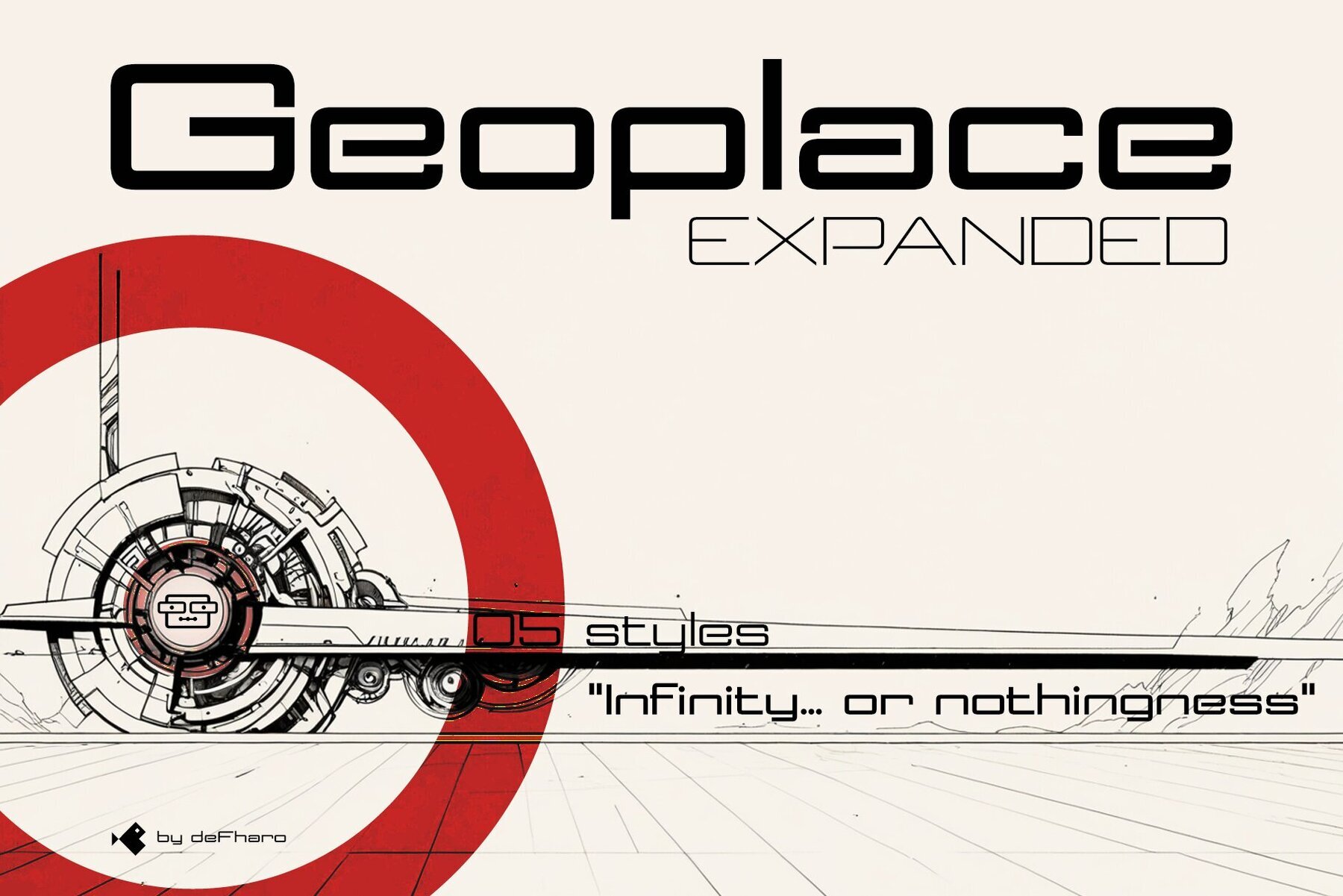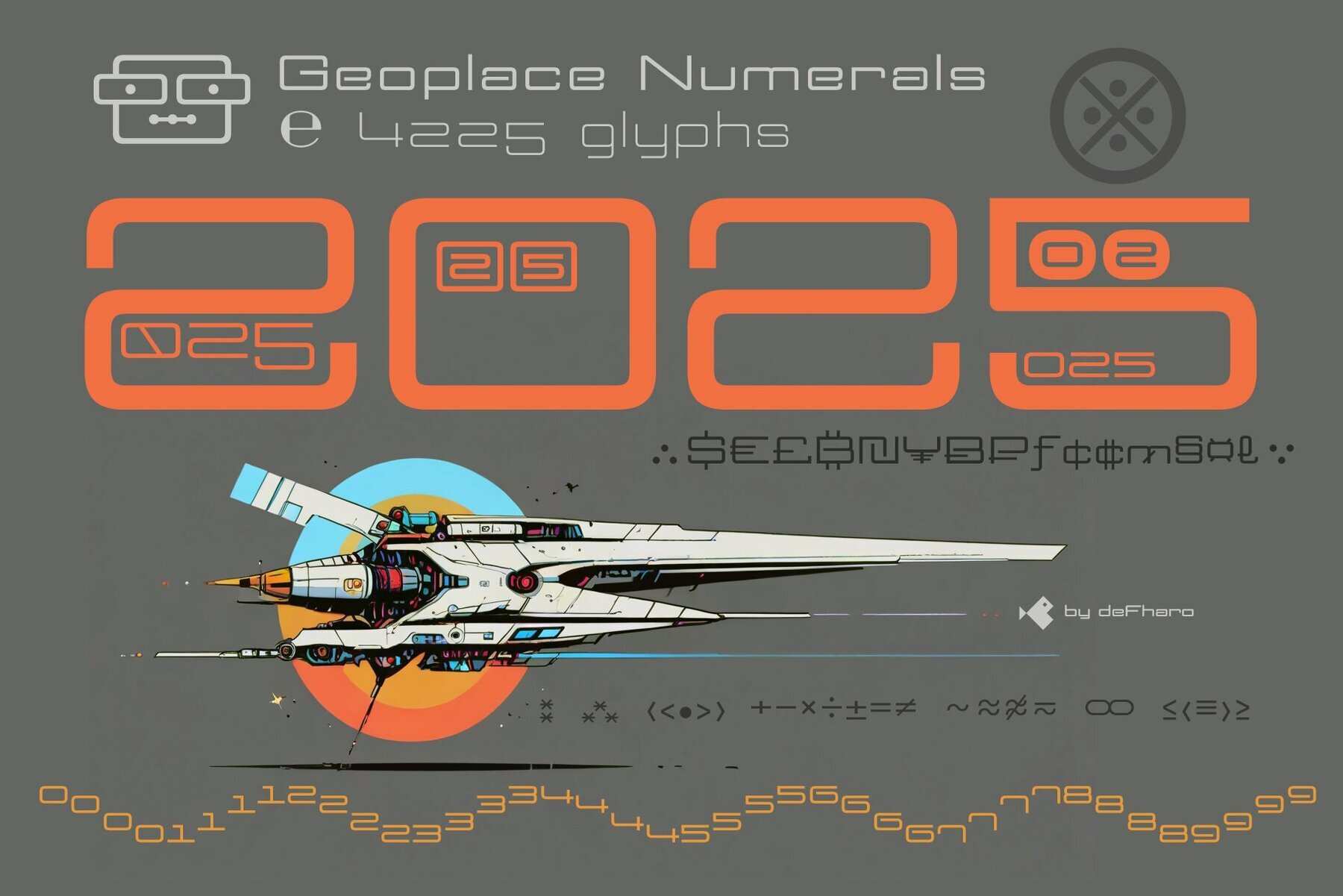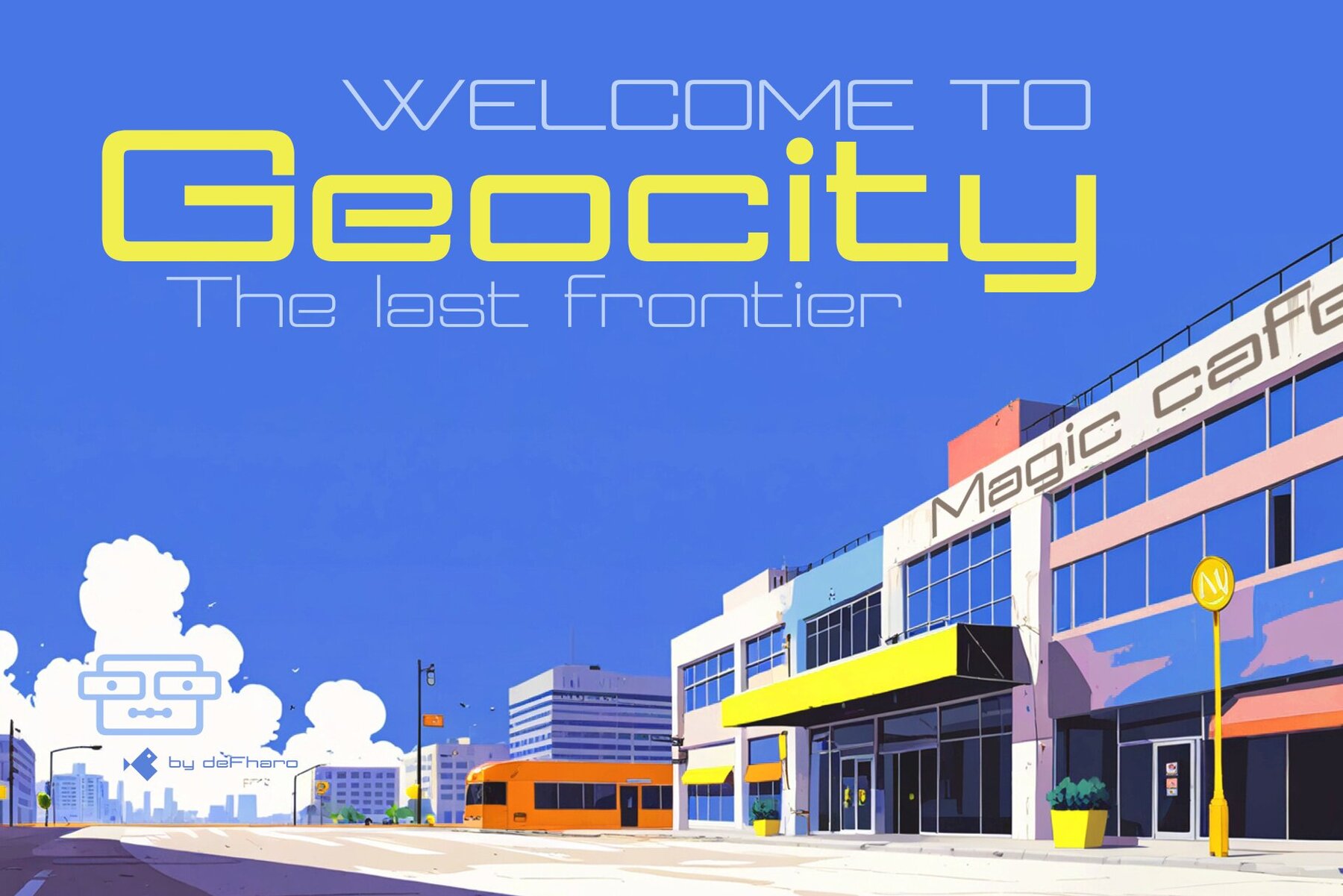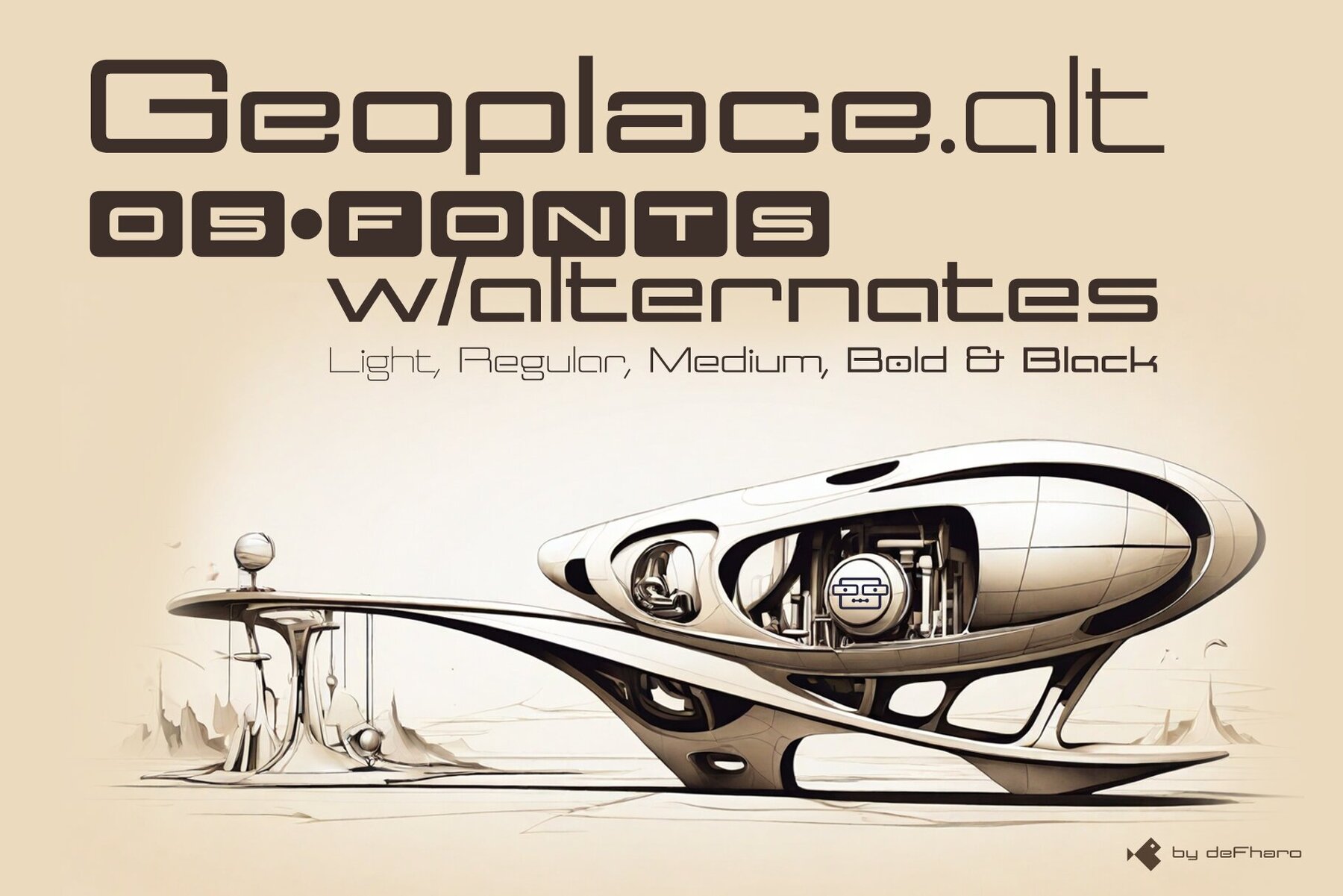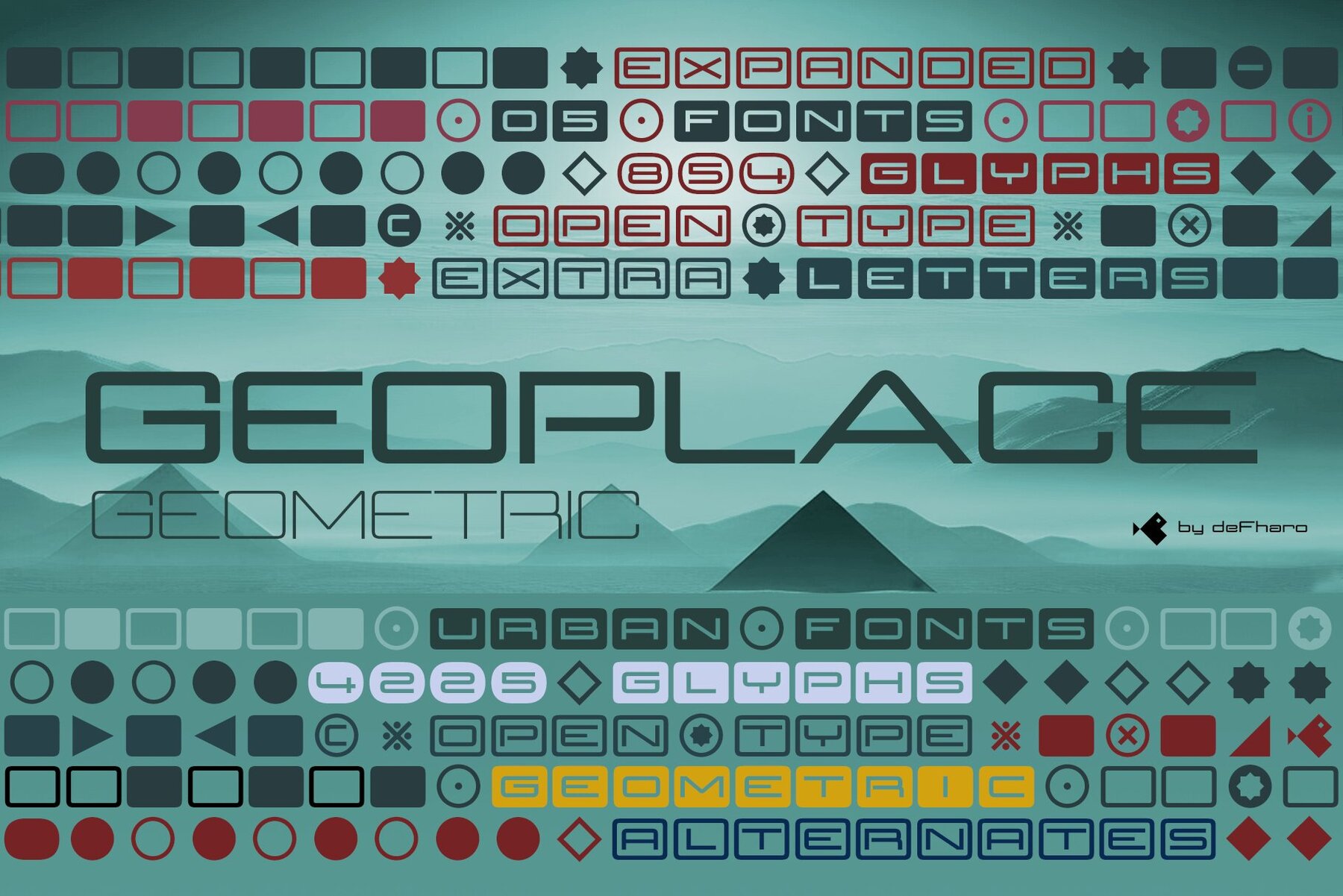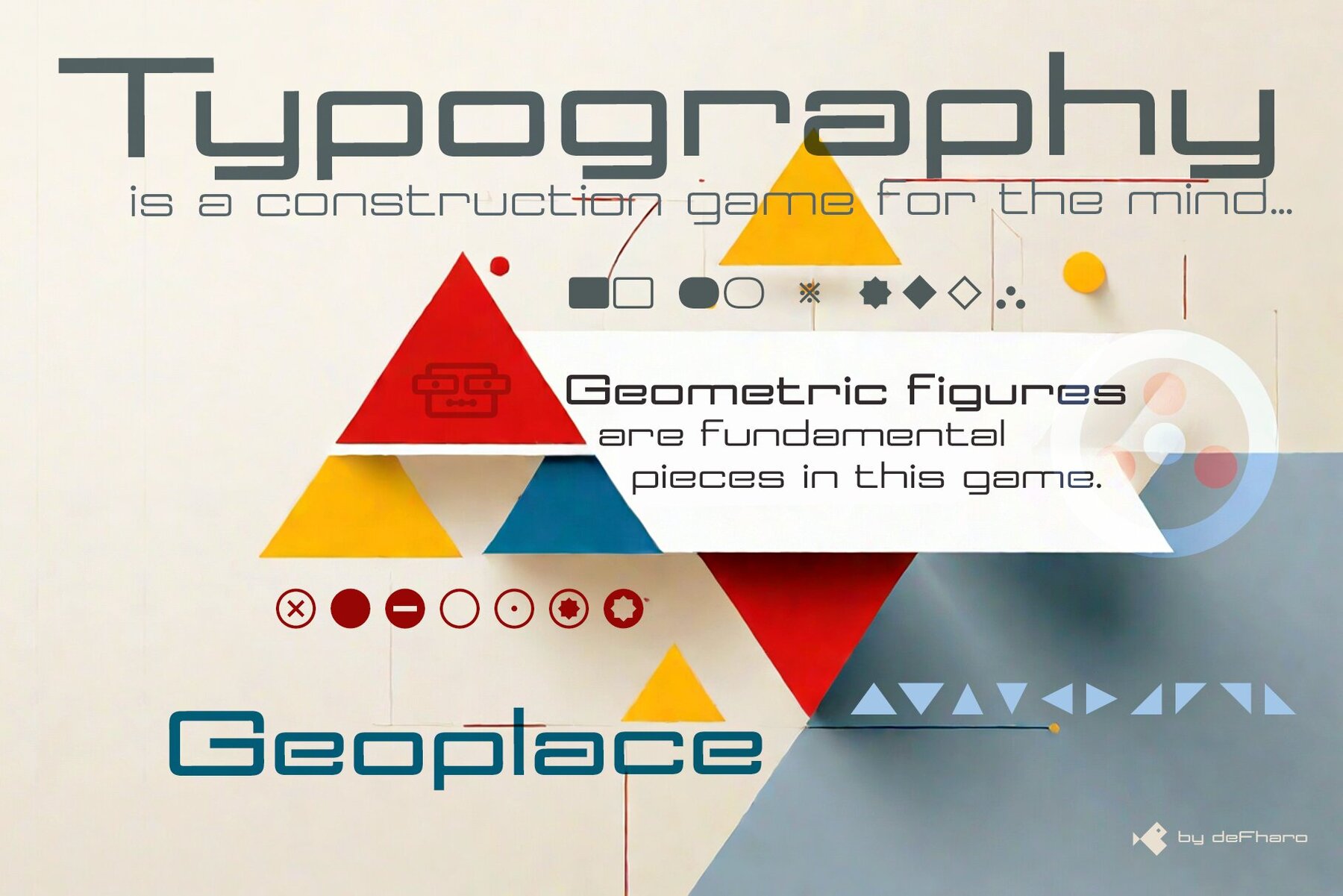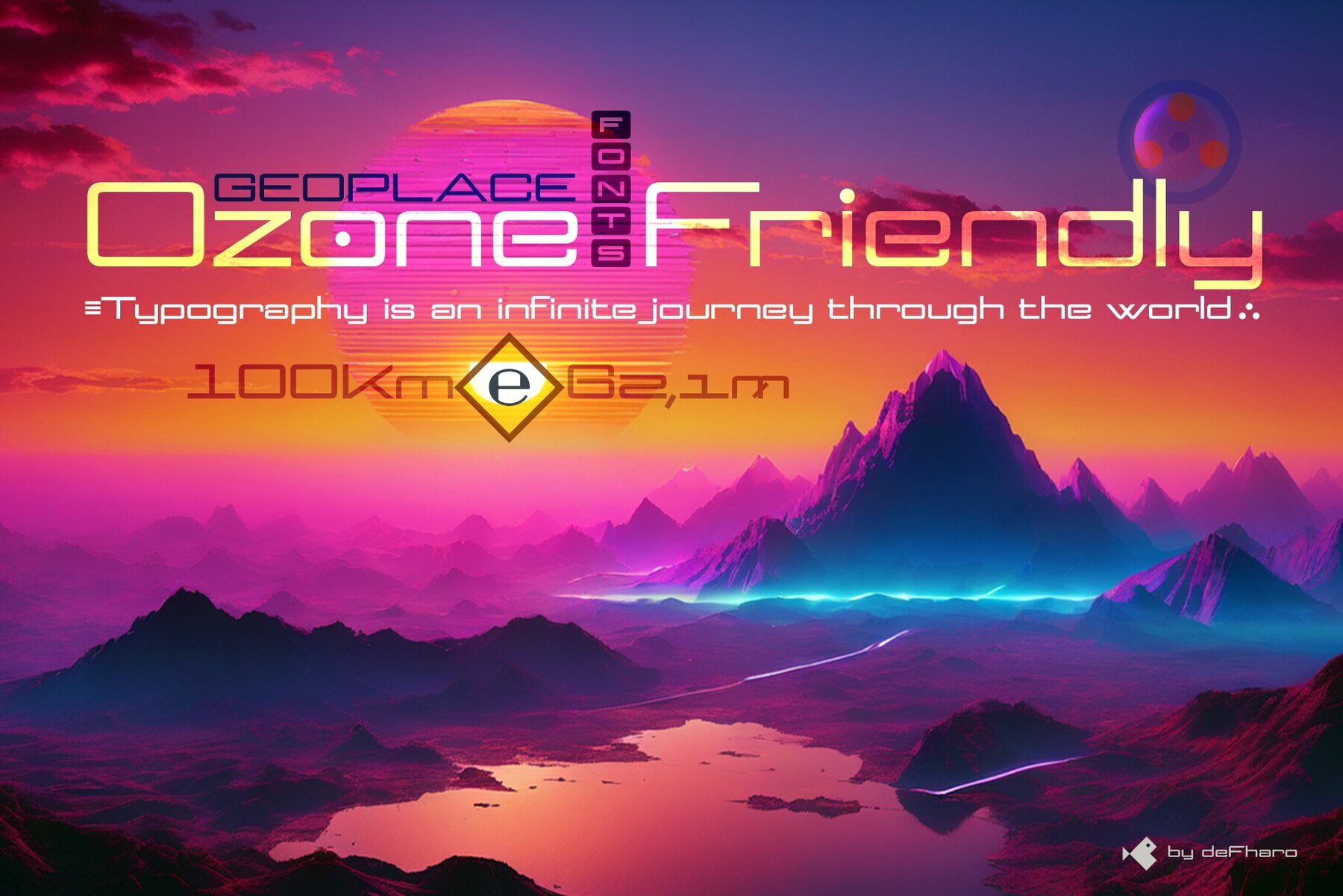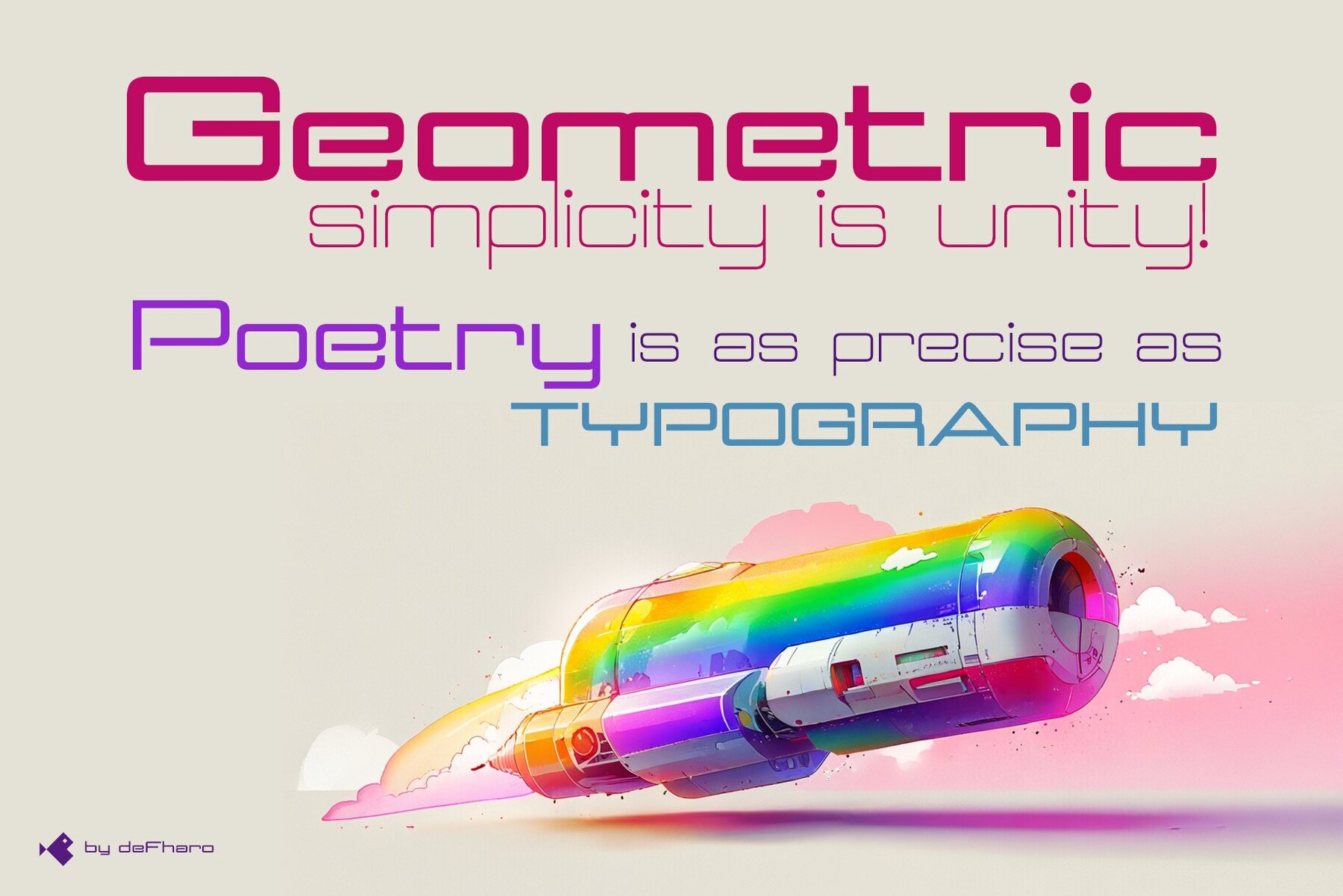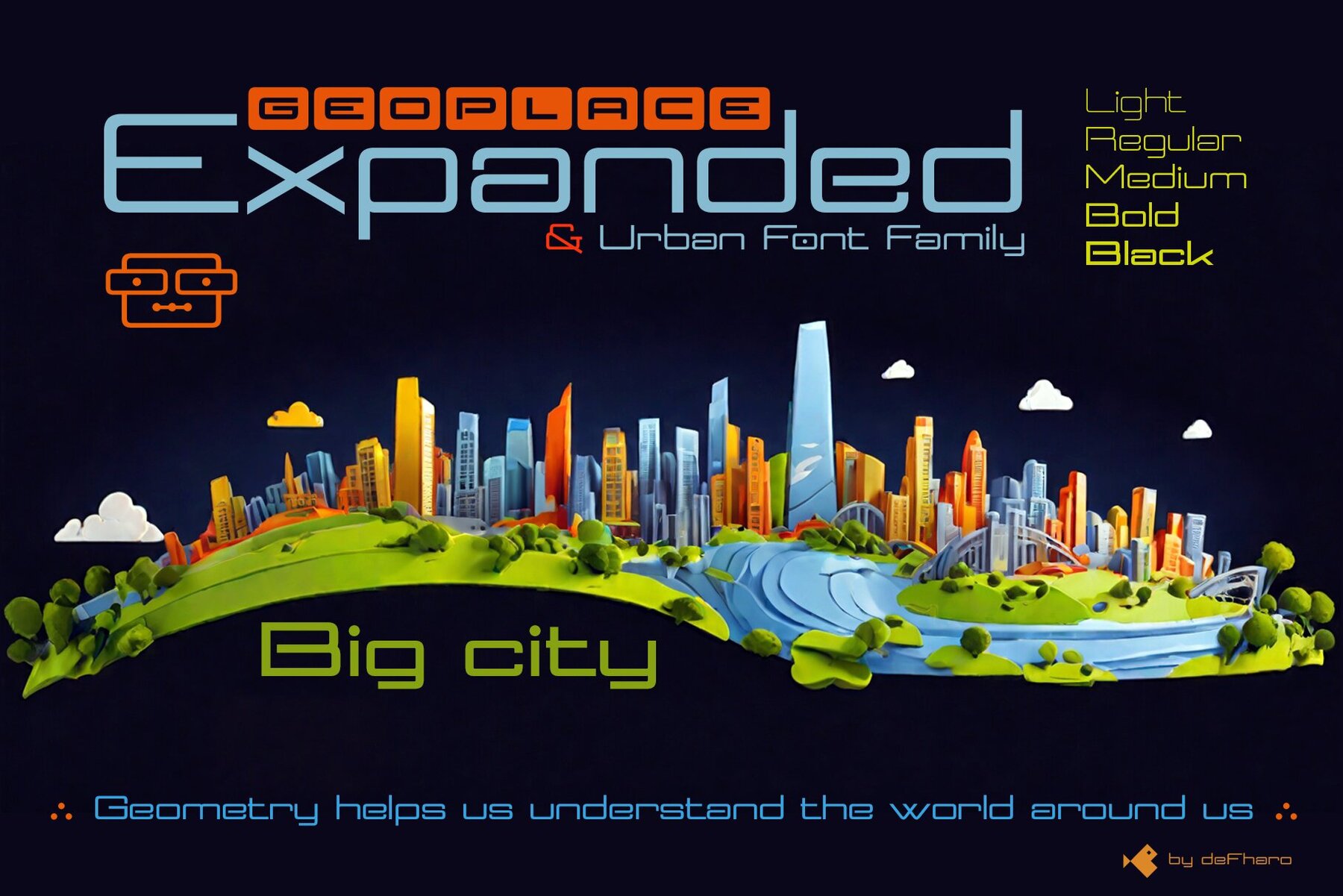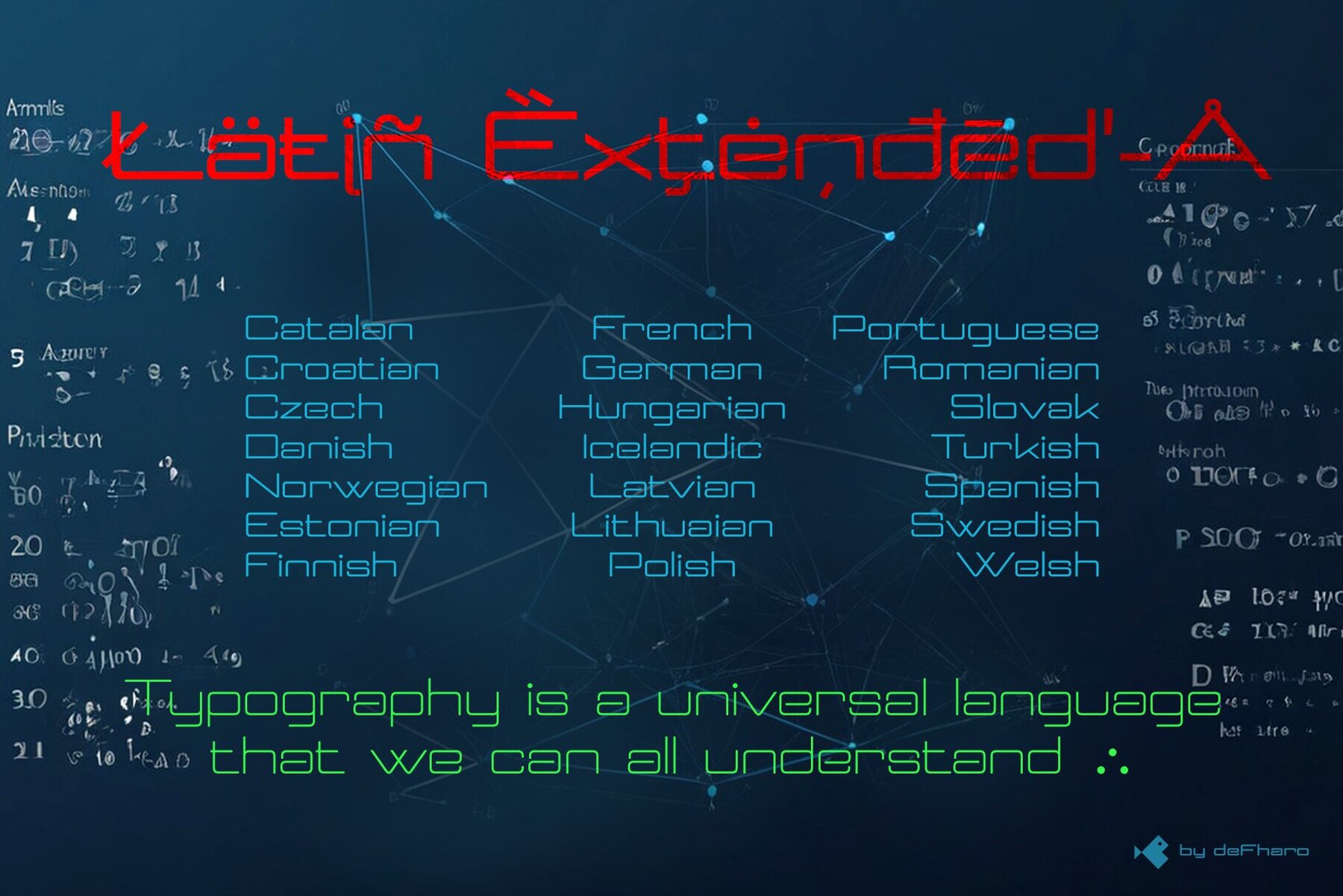
Geoplace Font
Geoplace is an exceptional sans serif font family characterized by its expanded proportions and a futuristic urban style. These fonts seamlessly blend technological inspiration with geometric precision, offering a distinctive aesthetic and exceptional legibility. Each curve and angle is crafted with millimeter precision, embodying the modernity and dynamics of urban environments. The expanded proportions enhance clarity and contemporary elegance, while experimentation with shapes and details creates a unique consistency. Geoplace is not only visually captivating but also profoundly versatile. It spans five weights, from thin and refined to bold and commanding, catering to various design needs. Featuring advanced OpenType functions, alternate letter and number sets, and an extensive range of symbols, this font family offers a robust tool for any creative endeavor, with a comprehensive collection of 855 glyphs. The Geoplace font family includes a complete character set (Latin Extended-A), making it suitable for any European language derived from Latin—perfect for multilingual projects.Geoplace Font Family
Functional and Aesthetic Versatility